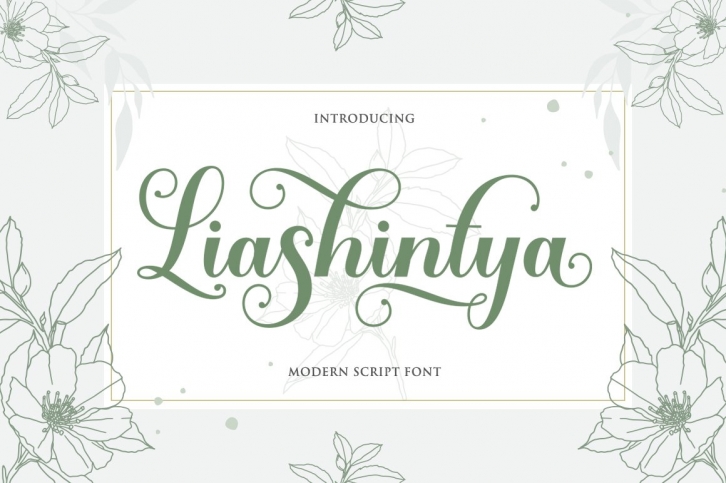
Liashintya Script is a beautiful font that was designed by Rastype. It's a great choice for designers and creatives who need such a font. It was released on November 11, 2020 and the file size is 12.81 MB. Liashintya Script may give a more youthful, expressive and casual look to your project. It is a very beautiful, refined, elegant, and high-quality font.